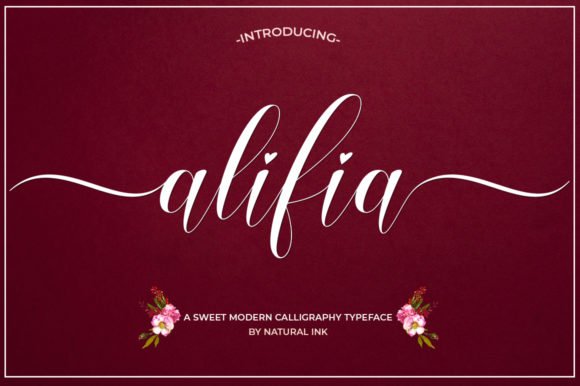
Discover the Beauty of Handwritten Style with Alifia Font
Have you ever been inspired by a handwritten note or a beautifully crafted invitation, only to wonder how to recreate that same magic in your design projects? As designers, we’re always on the lookout for the perfect font to bring our creative visions to life. That’s where Alifia Font comes in – a modern calligraphy font that’s designed to add a touch of elegance and sophistication to your work.
With its curvy lines and casual feel, Alifia Font is perfect for designers who want to add a personal touch to their projects. The font includes a range of alternate characters with swashes, giving you endless possibilities for creative expression. Whether you’re working on a wedding invitation, a branding project, or a social media campaign, Alifia Font is a valuable addition to your design toolkit.
Key Features of Alifia Font
- Unique Characteristics: Alifia Font features a unique blend of modern and traditional design elements, making it ideal for projects that require a sophisticated yet approachable look.
Review of Alifia Font
Overall, I found the Alifia font to be a beautiful and elegant script font. ✨ The flowing connections between letters make it perfect for any creative project that requires a touch of sophistication.
Here are some of the things that I particularly enjoyed about the Alifia font:
- ✨ The smooth and fluid lines create a sense of movement and dynamism.
- ✨ The font is highly legible, even at smaller font sizes.
- ✨ The font is perfect for use in logos, branding, and other creative projects where a touch of elegance is required.
However, there are some limitations to the Alifia font that I think are worth mentioning:
- ⚠️ The font may not be suitable for use in body text, as it can be quite difficult to read at longer lengths.
- ⚠️ The font is not as versatile as some other script fonts, and may not work well in certain contexts.
Overall, I think the Alifia font is a great choice for any creative project that requires a touch of elegance and sophistication. While it may have some limitations, I think it is a beautiful and effective font that can add a lot of visual interest to a project.
Get the most out of Alifia Font by using it for:
– Creating elegant headings and titles
– Designing modern and minimalist typography
– Adding a touch of sophistication to your designs
– Pairing it with other fonts for a unique look
– Using it for digital and print designs